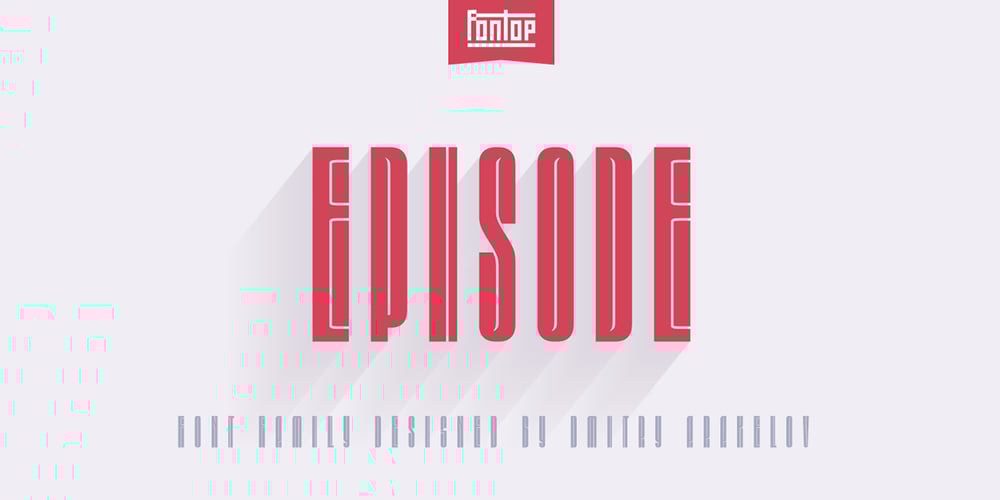
Episode Font Family was designed by Dmitry Arakelov and published by Fontop. Episode contains 2 styles and family package options. Introducing a new sanserif typeface EPISODE. Elegant yet distinctive and creative. Perfect for posters, leaflets, books, magazines, presentations as well as headers in advertising layouts. Two fonts are included into the family – Episode Condensed and Episode Condensed 3D that gives more opportunity for your creativity. Both fonts has swashes that are very easy to add – just use number 0-9 + letter you want to add the swash to. Both OTF and TTF are included for each font. Fonts are Latin multilingual and have uppercase letters, lowercase letters, numbers and basic punctuations.